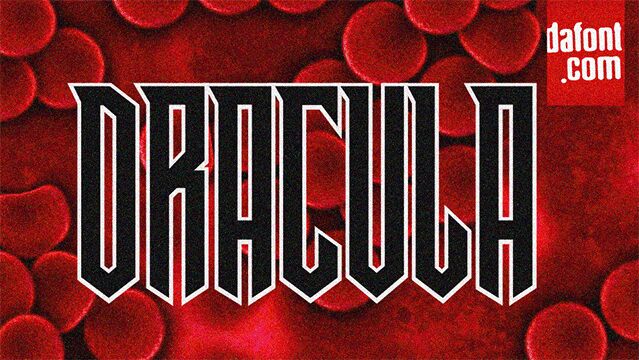
Dracula Condensed, designed by the gifted Vladimir Nikolic, is a hauntingly elegant member of the Dracula font family. With its gothic roots and modern twist, this semi-light typeface weaves an air of mystery into every character. Its condensed style not only perfects the art of space-saving elegance but also ensures that each word stands out with a dramatic flair.
Ideal for designers seeking to infuse their projects with an enigmatic presence, Dracula Condensed transcends ordinary design boundaries-making it perfect for editorial spreads, branding initiatives, and eye-catching advertising campaigns.